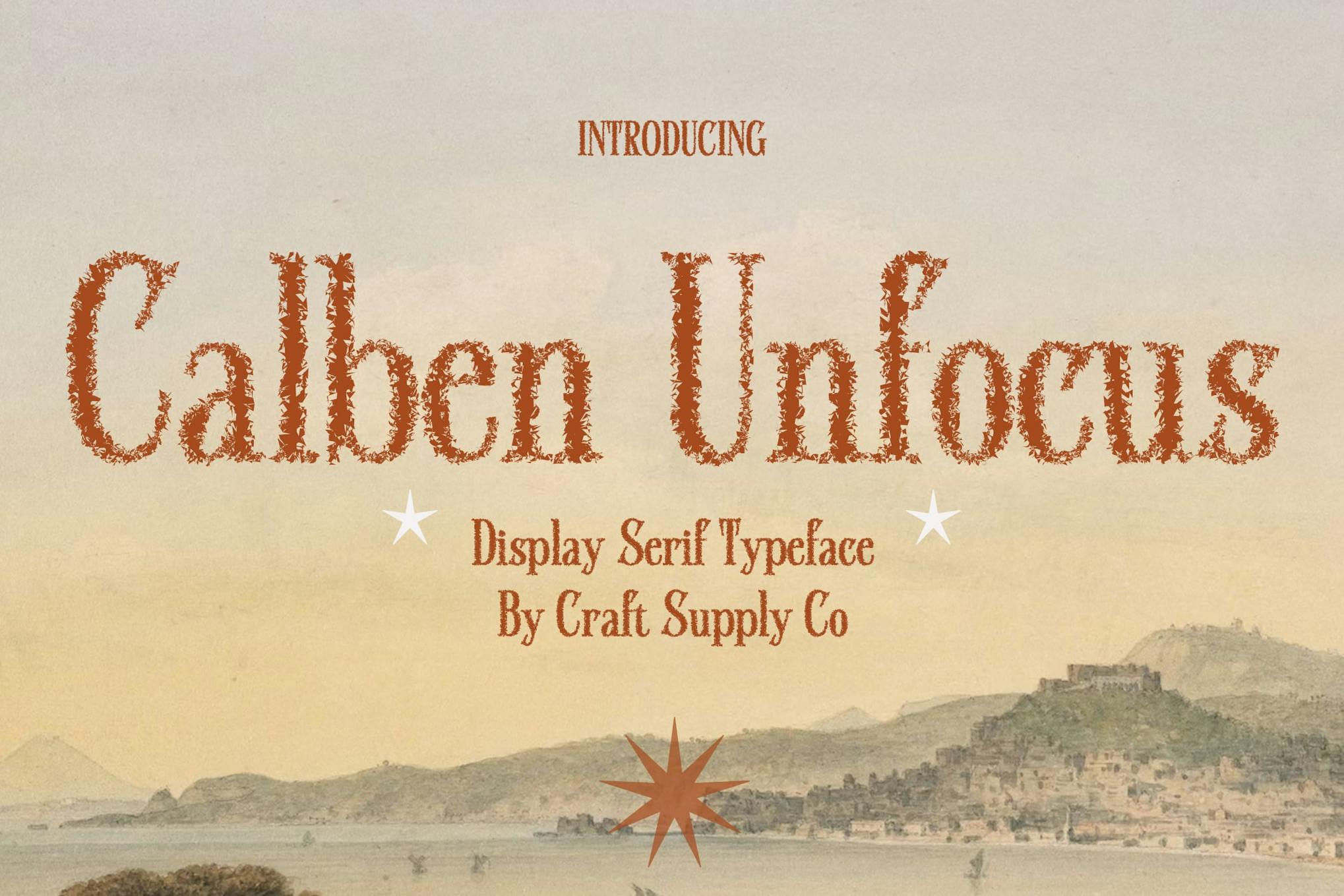
Calben Unfocus Font
Calben Unfocus Font enhances zen meditation studios, mindful wellness centers, tranquil spa branding, peaceful yoga retreats, serene therapeutic services, calm beauty product packaging, balanced lifestyle magazines, harmonious interior design projects, gentle counseling practices, peaceful children's environments, balanced nutrition brands, and therapeutic marketing campaigns where calibrated calmness and gentle unfocus create perfectly balanced emotional experiences.
This harmonious typeface generates excitement through its masterful calibration of visual balance and gentle unfocus that creates typography achieving perfect equilibrium between clarity and serenity. Calben Unfocus Font embodies the essence of calibrated wellness with its precisely balanced letterforms that suggest the careful adjustment of life's elements to achieve optimal harmony and peace. The font's sophisticated design approach incorporates principles of visual equilibrium and therapeutic balance, creating typography that naturally promotes feelings of stability and calm awareness. Its distinctive character reflects the measured wisdom and gentle precision that define authentic wellness practices and balanced living philosophies.
The Calben Unfocus Font family encompasses multiple balance-inspired variations including Regular, Light, Medium, Bold, and Equilibrium versions, each maintaining the font's characteristic calibrated serenity while offering different levels of peaceful impact. The collection features precisely balanced blur effects, harmonious edge treatments, and therapeutic textures that enhance its wellness aesthetic. Additional elements include balance symbols, zen-inspired ornaments, harmonious decorative borders, and therapeutic flourishes that reinforce the font's connection to calibrated wellness and balanced living.
Wellness professionals and therapeutic brand designers consistently choose Calben Unfocus Font Free Download for projects requiring typography that communicates balanced harmony and calibrated well-being. This remarkable typeface excels in applications where creating emotional equilibrium and conveying therapeutic expertise are essential for healing success. The font's calibrated qualities make it particularly effective for wellness centers, therapeutic practices, and balance-focused brands targeting clients who value measured approaches to health and carefully calibrated lifestyle improvements.
Whether you're designing wellness center identities, creating therapeutic service branding, developing balanced lifestyle campaigns, or crafting mindful marketing communications, Calben Unfocus Font delivers unmatched therapeutic authenticity. Its ability to convey balance, calibrated wellness, and therapeutic precision makes it invaluable for wellness practitioners seeking typography that genuinely supports healing and equilibrium. The font's calibrated presence ensures your designs will communicate the measured wisdom and gentle precision that define exceptional therapeutic communications and balanced wellness experiences.